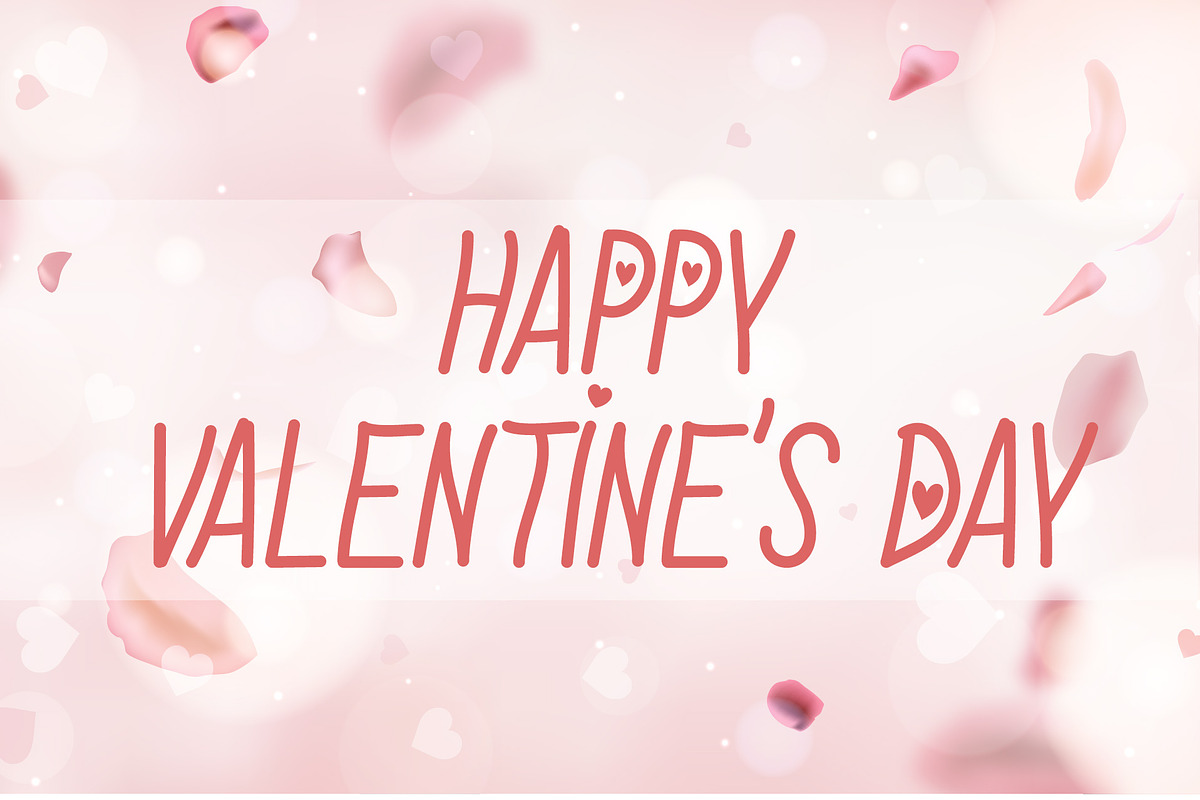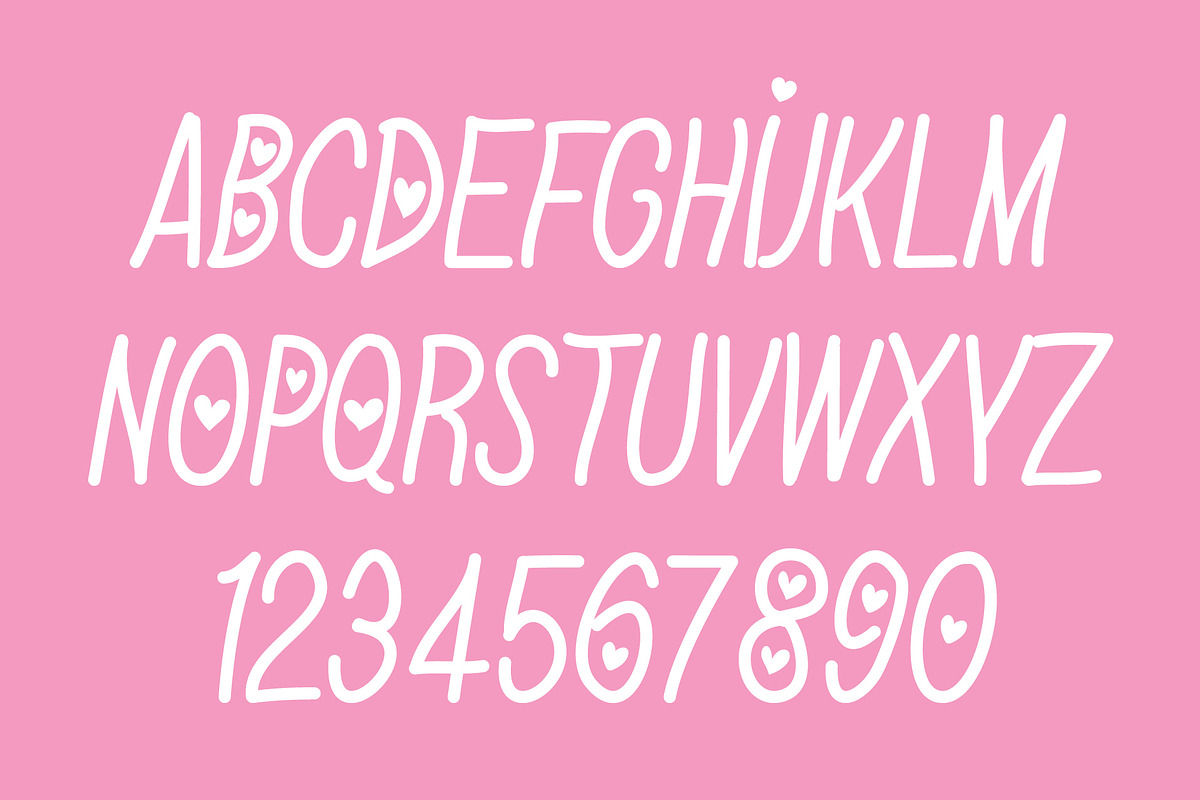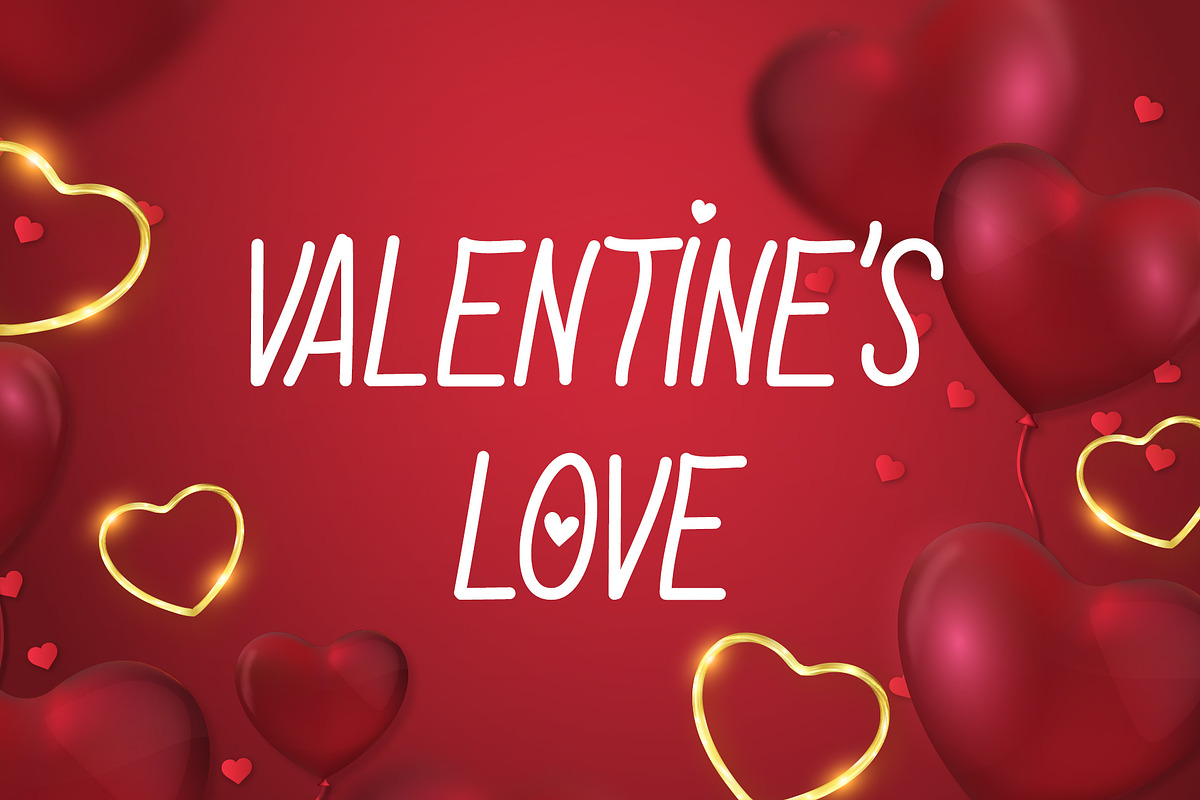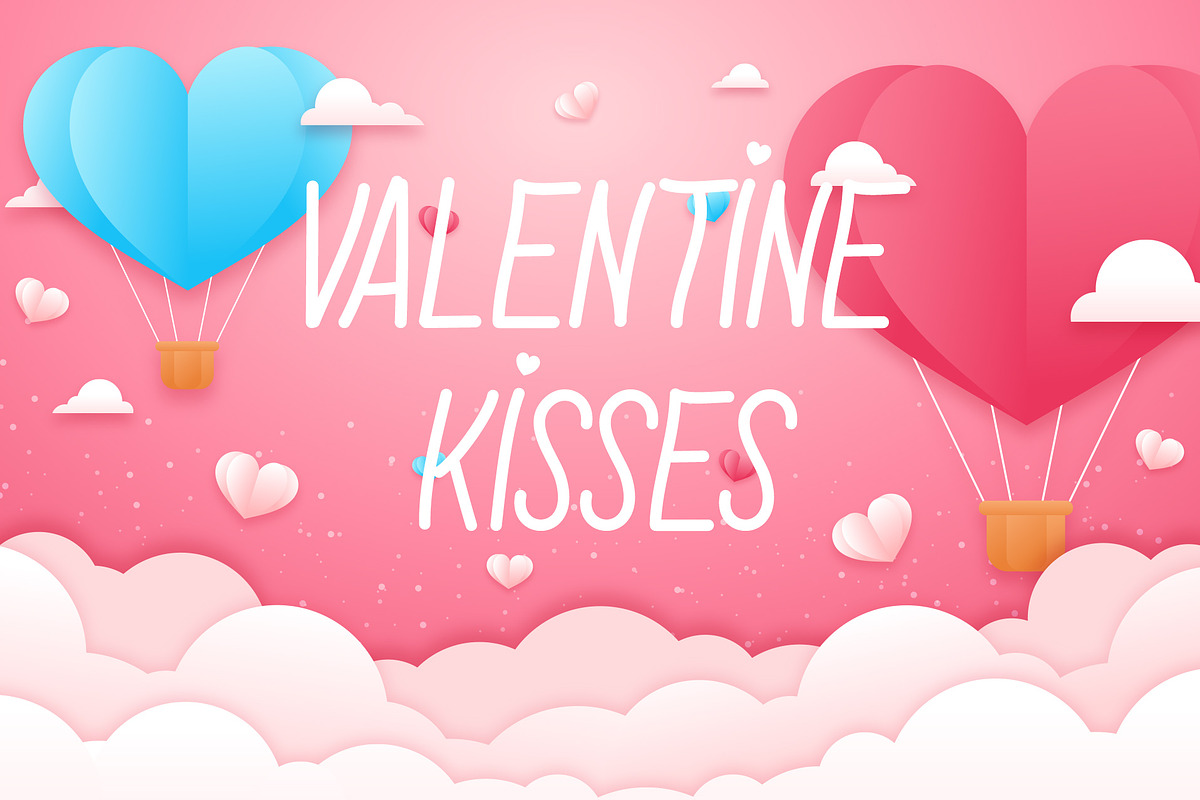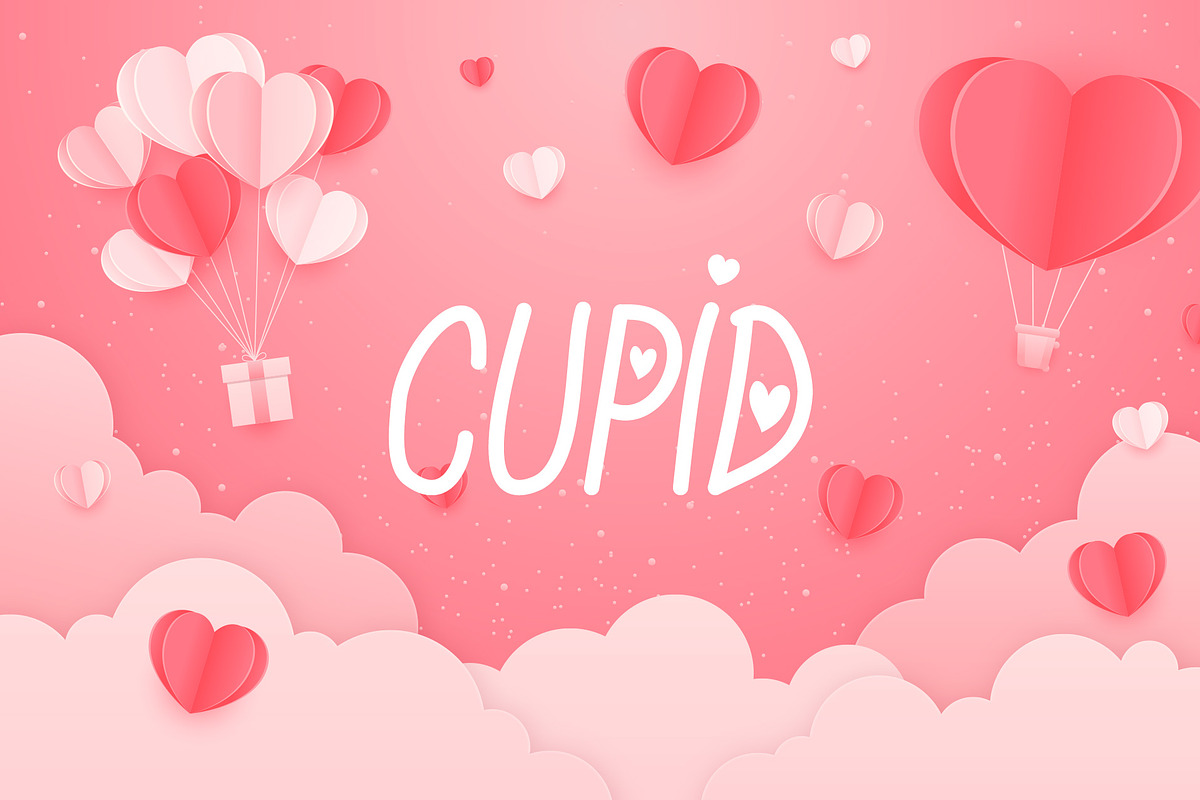
Valentines Love Font
Valentines Love is a beautiful display font. It will add a fresh and contemporary touch to your designs. Add this unique display font to each of your creative ideas and notice how it makes them stand out!